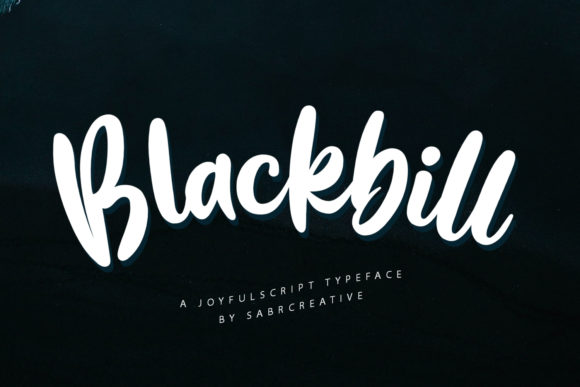
Behold Blackbill Font, a modern and charming display font, crafted to bring a touch of elegance and authenticity to your creative endeavors. Each letter, meticulously designed, exudes a timeless appeal, ensuring your words and designs captivate and resonate with your audience.
Dive into a world of endless possibilities with Blackbill, a font that transcends the ordinary, transforming the mundane into the extraordinary. Express your individuality, amplify your message, and make a lasting impression with every stroke of this captivating font.
With Blackbill, you're not just purchasing a font; you're acquiring a tool to unleash your creativity and leave an indelible mark on your audience. Whether you're a designer seeking to create stunning visuals, a blogger aiming to craft captivating content, or a business owner looking to make a bold statement, Blackbill is your perfect companion.
Blackbill's beautifully balanced letters dance harmoniously on the page, creating an aesthetic that's both visually appealing and easy to read. Its versatility knows no bounds, effortlessly adapting to a myriad of projects and platforms. From logos and branding to social media graphics and product packaging, Blackbill seamlessly elevates your designs and captures the attention of your audience.
But Blackbill is more than just a pretty face. It's a font that speaks to your emotions, evoking a sense of nostalgia and charm that resonates with your audience on a deeper level. Whether you're designing a wedding invitation, creating a heartfelt letter, or crafting a social media post, Blackbill adds a touch of warmth and authenticity that connects with your readers and leaves a lasting impression.
So, embrace the power of Blackbill, and embark on a creative journey that knows no limits. Transform your designs into masterpieces, captivate your audience with your words, and leave a legacy of visual excellence that will be remembered and cherished for years to come.